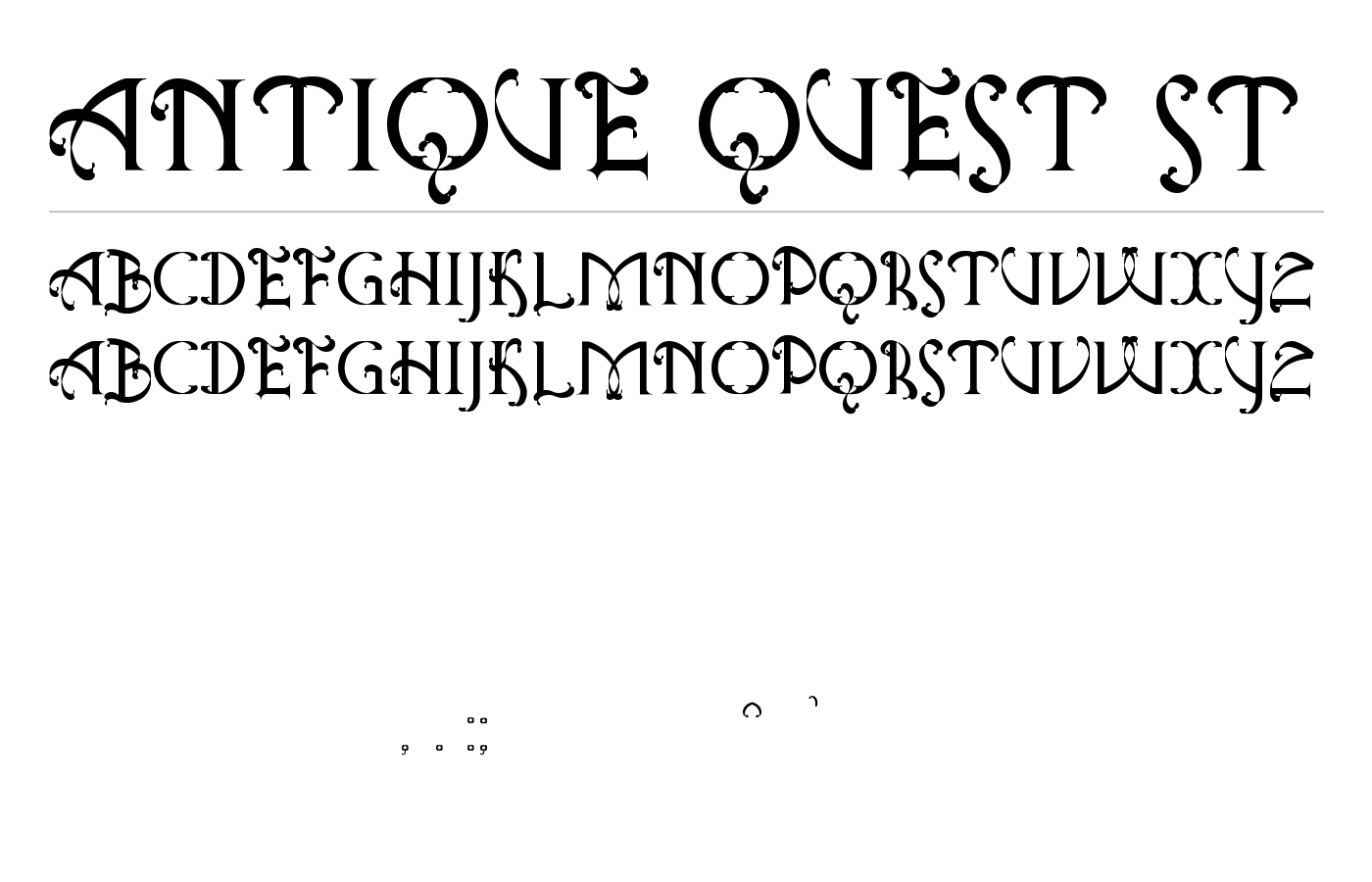
Antique Quest St is a decorative serif font with a vintage flair, featuring intricate, ornate details and stylized terminals that evoke an old-world, almost medieval charm. Its medium weight and tall, narrow letterforms create a striking, elegant presence ideal for logos, headlines, and branding that seek a historic or luxurious aesthetic. This font works best in design contexts where a unique, sophisticated, and classical impression is desired, making it perfect for invitations, packaging, and editorial titles with a refined, artistic touch.
Antique Quest St Font
About Antique Quest St Font
| Font family | Antique Quest St Font |